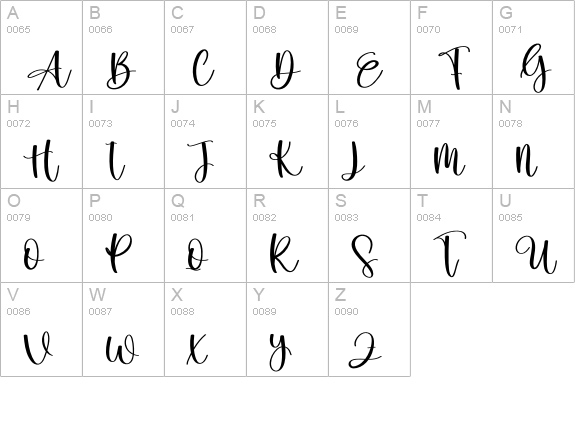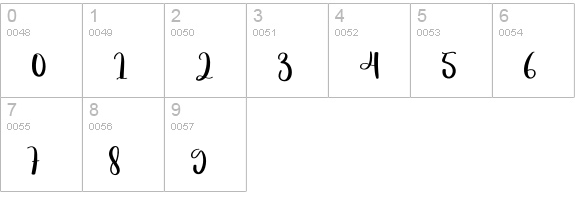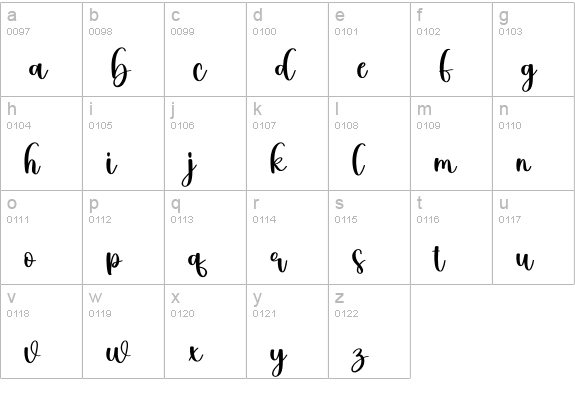
Everyday Font Details
Everyday is a free for personal use font in the Script > Handwritten category, designed by scratchones. It has been downloaded 32 times and is available for Windows, Mac and Linux.
Everyday font is a versatile and modern typeface that is perfect for various design projects. With its clean lines and easy readability, Everyday font is suitable for both digital and print applications. This font adds a touch of sophistication and professionalism to any design while maintaining a friendly and approachable feel.